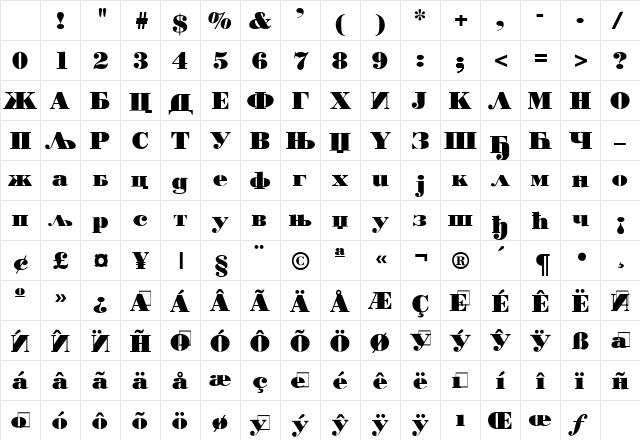
Complete Bodoni PosterD&DCirilica Black glyph index. Displaying only characters natively supported by Bodoni PosterD&DCirilica Black font.
Bodoni PosterD&DCirilica is a composed and adaptable typeface that performs quietly and consistently across a wide range of design contexts.